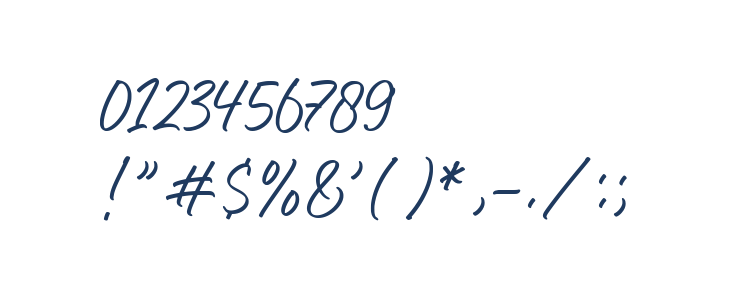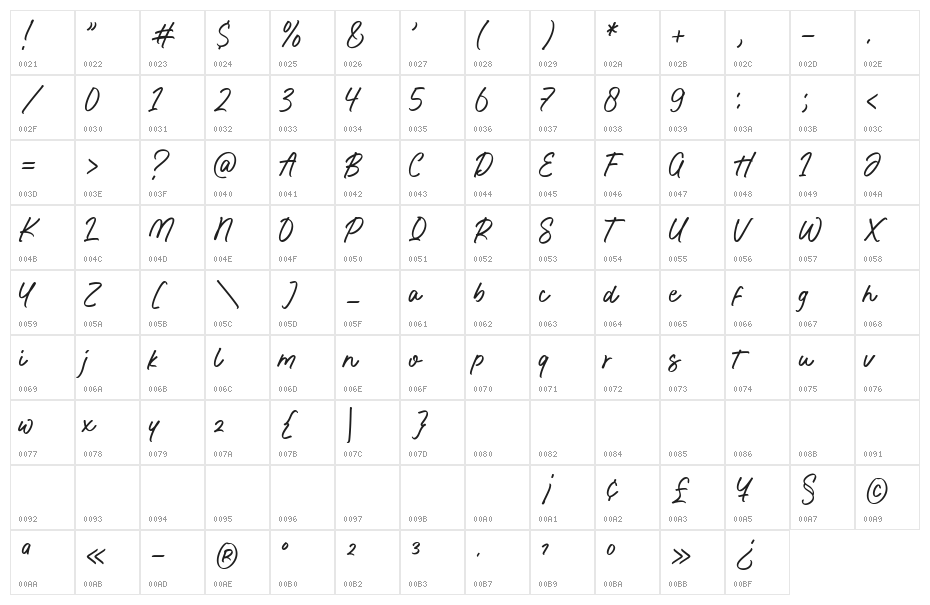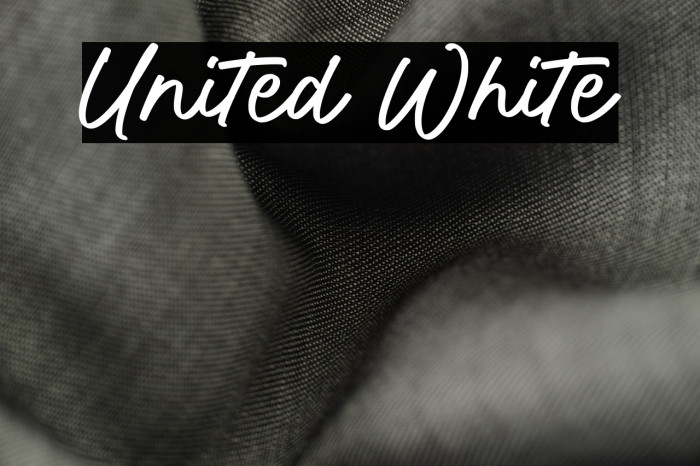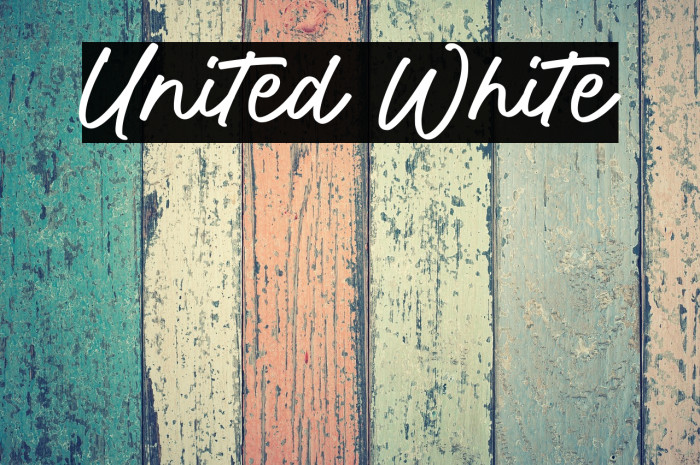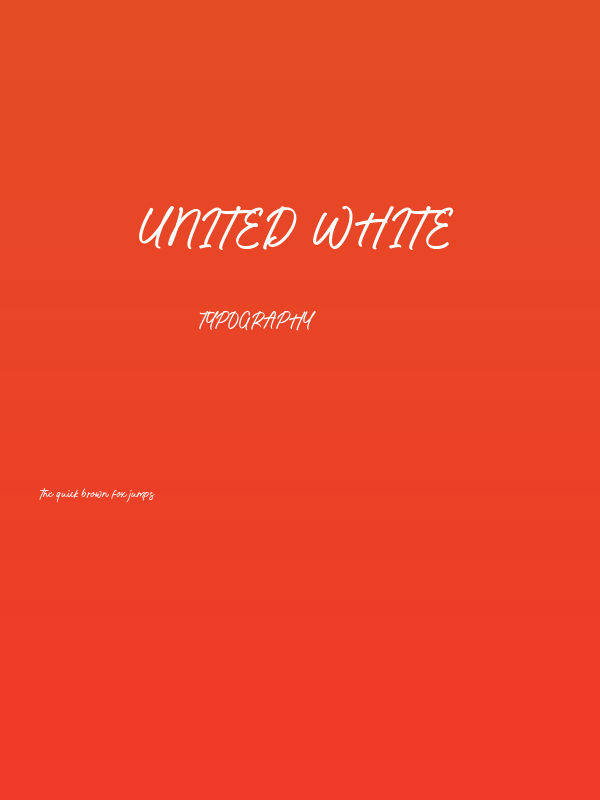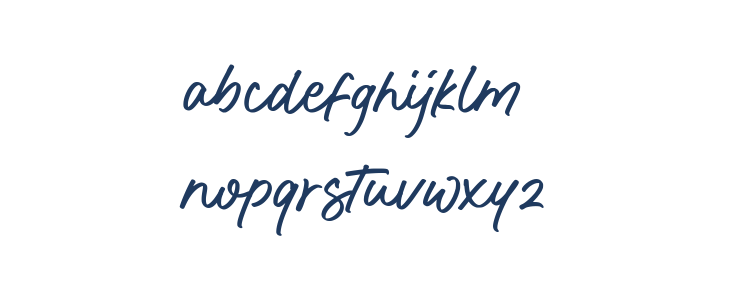
United White Font
United White Description
This font features a flowing, cursive style that mimics natural handwriting. The characters are connected, creating a seamless and elegant appearance. The uppercase letters are slightly taller and more pronounced, while the lowercase letters maintain a consistent baseline, adding to the fluidity of the text. The numbers and special characters are designed to match the overall script style, ensuring a cohesive look across all elements. The strokes are smooth and slightly varied in thickness, adding a touch of sophistication and charm.